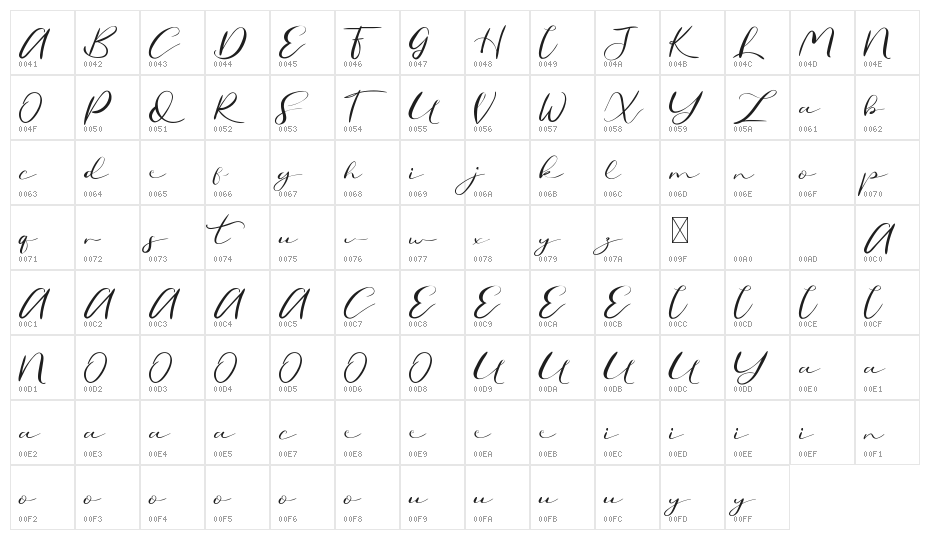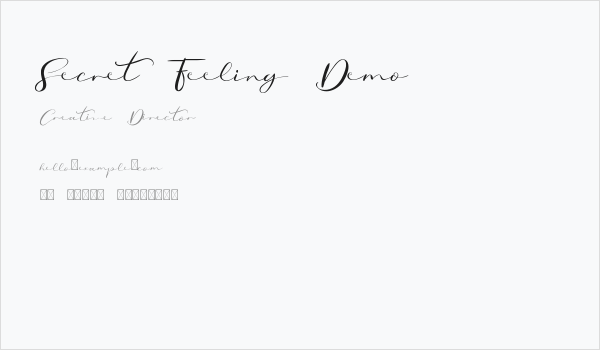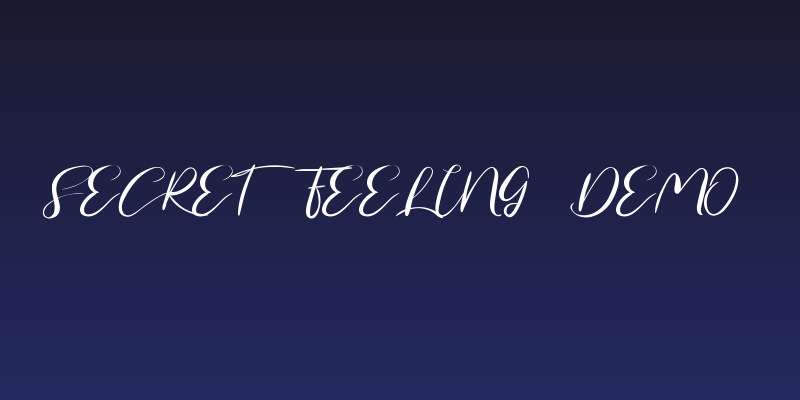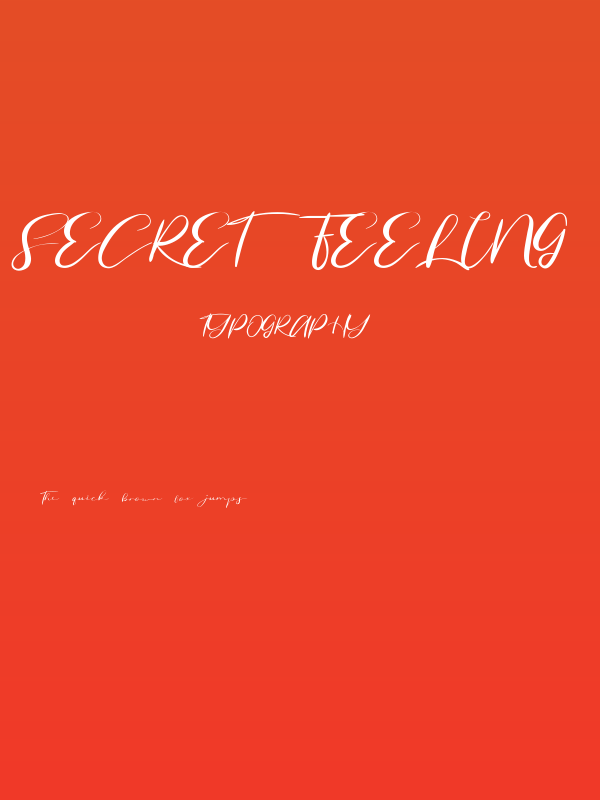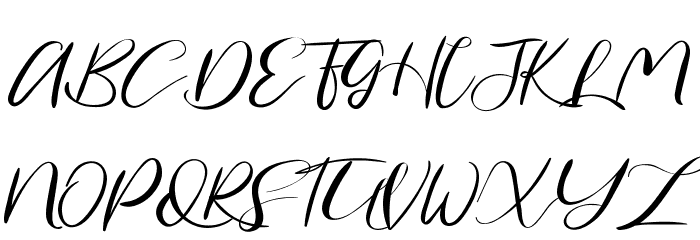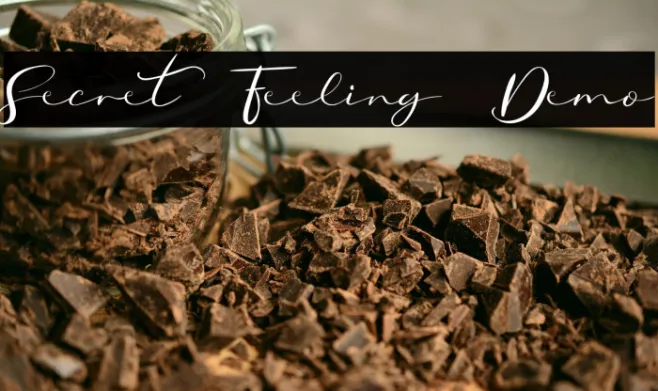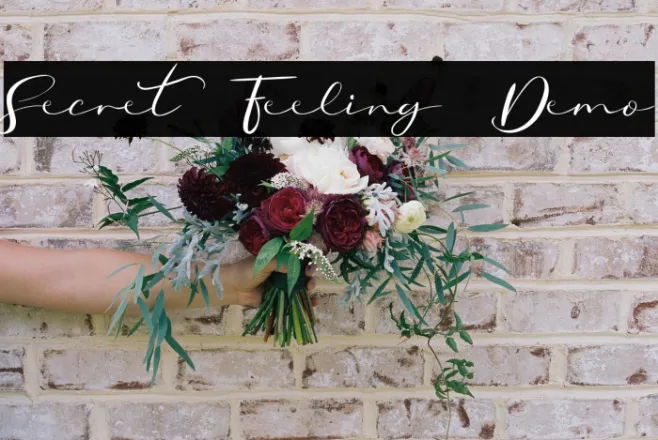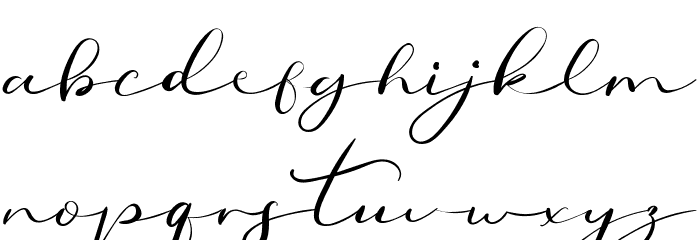
Secret Feeling Demo Font
Secret Feeling Demo Description
This font exudes elegance and fluidity, characterized by its cursive, handwritten style. The letters are interconnected with smooth, flowing strokes that give it a sense of movement and grace. The uppercase letters are bold and prominent, while the lowercase letters maintain a delicate and airy appearance. The font's overall design is sophisticated, making it suitable for projects that require a touch of class and refinement. Its artistic flair is evident in the varied stroke thickness, which adds a dynamic quality to the text. The font is versatile, capable of conveying both modern and vintage aesthetics depending on its application.